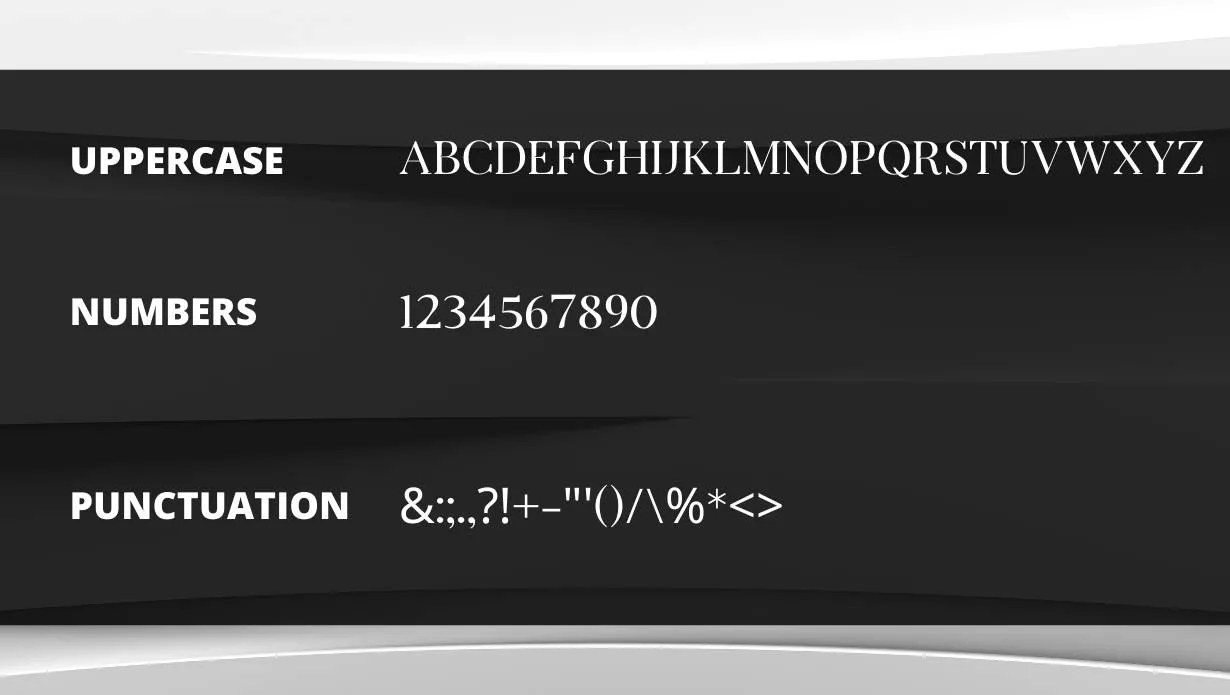
Arterio Font is a serif typeface designed in 2012 by Atipo. The design was inspired by the classic grotesque typefaces of the early twentieth century, but with a contemporary twist. The typeface is available in three weights—light, regular, and bold—with matching italics.
The glyphs in Arterio are simple and efficient, with a tall x-height and wide aperture. The typeface’s personality is friendly and approachable, making it well-suited for use in branding, marketing, and advertising. For making something cool, please try the dinot font for your valuable design project.
| Name | Arterio Font |
| Designer | Atipo |
| Style | Serif |